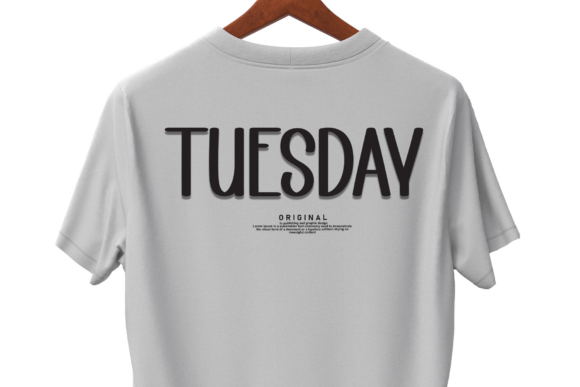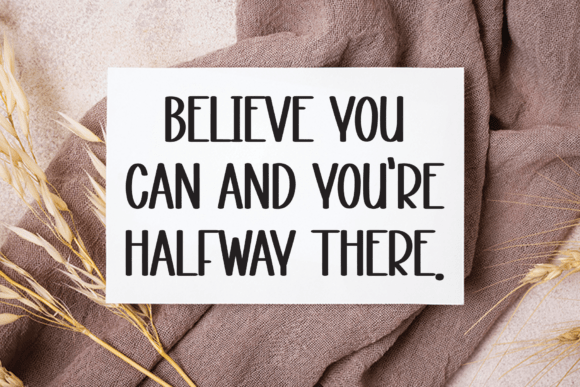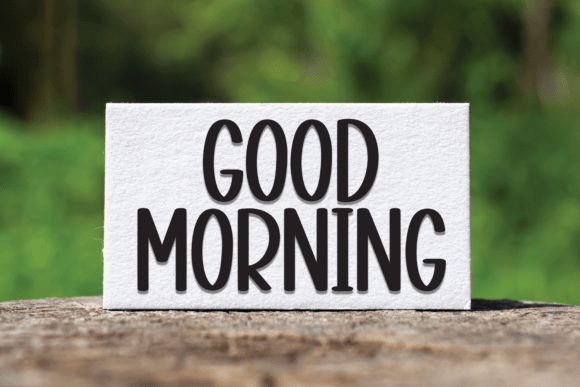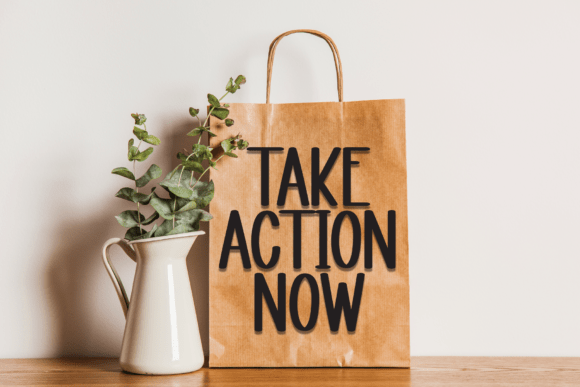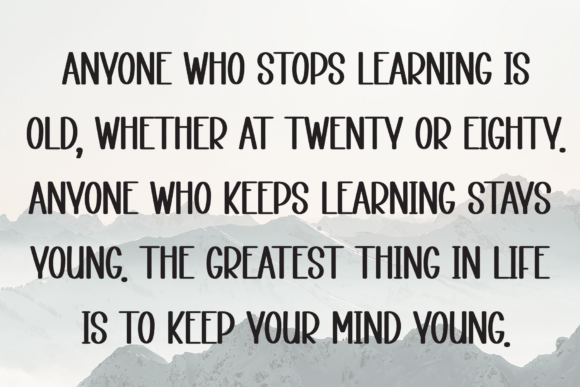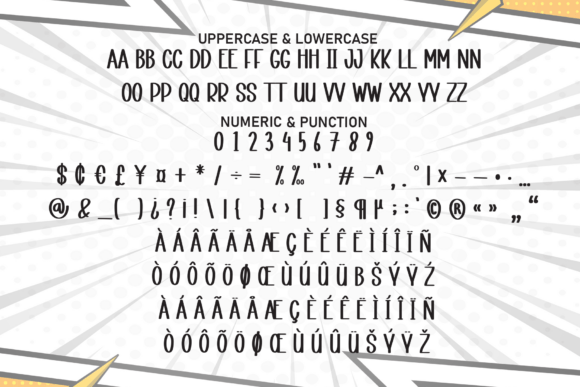
Introducing Comic Funny Font: The Ultimate Display Font for Adding a Playful Touch to Your Designs
Are you tired of using the same old fonts for your designs? Do you want to add a sprinkle of joy and whimsy to your creations? Look no further than Comic Funny Font, a charming handwritten display font that’s sure to delight. With its sweet and friendly vibe, this font is perfect for designers and crafters who want to infuse their work with a playful touch.
The Inspiration Behind Comic Funny Font
Comic Funny Font was designed with one goal in mind: to bring a sense of cuteness and amusement to your designs. The font’s creator wanted to craft a typeface that would evoke feelings of joy and happiness, making it perfect for projects that require a lighthearted and playful approach. Whether you’re working on a wedding invitation, a greeting card, or any other design project, Comic Funny Font is sure to bring a smile to your face.
What Makes Comic Funny Font So Special?
So, what sets Comic Funny Font apart from other display fonts on the market? Here are just a few features that make it so special:
- Handwritten charm: Comic Funny Font has a beautifully handwritten feel that’s sure to add a personal touch to your designs.
- Cute and playful elements: The font is dotted with elements of cuteness and amusement, making it perfect for projects that require a playful approach.
- Versatile: Comic Funny Font can be used for a wide range of design projects, from wedding invitations and greeting cards to posters and social media graphics.
- Easy to read: Despite its playful nature, Comic Funny Font is surprisingly easy to read, making it perfect for use in both digital and print designs.
How to Use Comic Funny Font in Your Designs
Now that you know a little bit about Comic Funny Font, let’s talk about how to use it in your designs. Here are a few ideas to get you started:
- Wedding invitations: Add a touch of whimsy to your wedding invitations with Comic Funny Font. It’s perfect for couples who want to convey their playful and romantic side.
- Greeting cards: Comic Funny Font is a great choice for greeting cards, whether you’re making a birthday card, a thank-you card, or a get-well card.
- Social media graphics: Add some personality to your social media graphics with Comic Funny Font. It’s perfect for creating eye-catching posts and stories.
- Posters and flyers: Comic Funny Font can also be used for posters and flyers. It’s a great way to add some visual interest to your designs and make them more engaging.
Tips for Getting the Most Out of Comic Funny Font
Here are a few tips for getting the most out of Comic Funny Font:
- Experiment with different colors: Comic Funny Font looks great in a variety of colors, so don’t be afraid to experiment and find the perfect hue for your design.
- Pair it with other fonts: Comic Funny Font can be paired with other fonts to create a unique and interesting look. Try pairing it with a bold sans-serif font for a fun and playful contrast.
- Use it sparingly: While Comic Funny Font is a beautiful font, it can be overwhelming if used too much. Use it sparingly to add a touch of whimsy to your designs.
In conclusion, Comic Funny Font is a charming handwritten display font that’s perfect for designers and crafters who want to add a playful touch to their creations. With its sweet and friendly vibe, this font is sure to delight and bring a smile to your face. Whether you’re working on a wedding invitation, a greeting card, or any other design project, Comic Funny Font is a great choice. So why not give it a try and see how it can add some joy and whimsy to your designs?